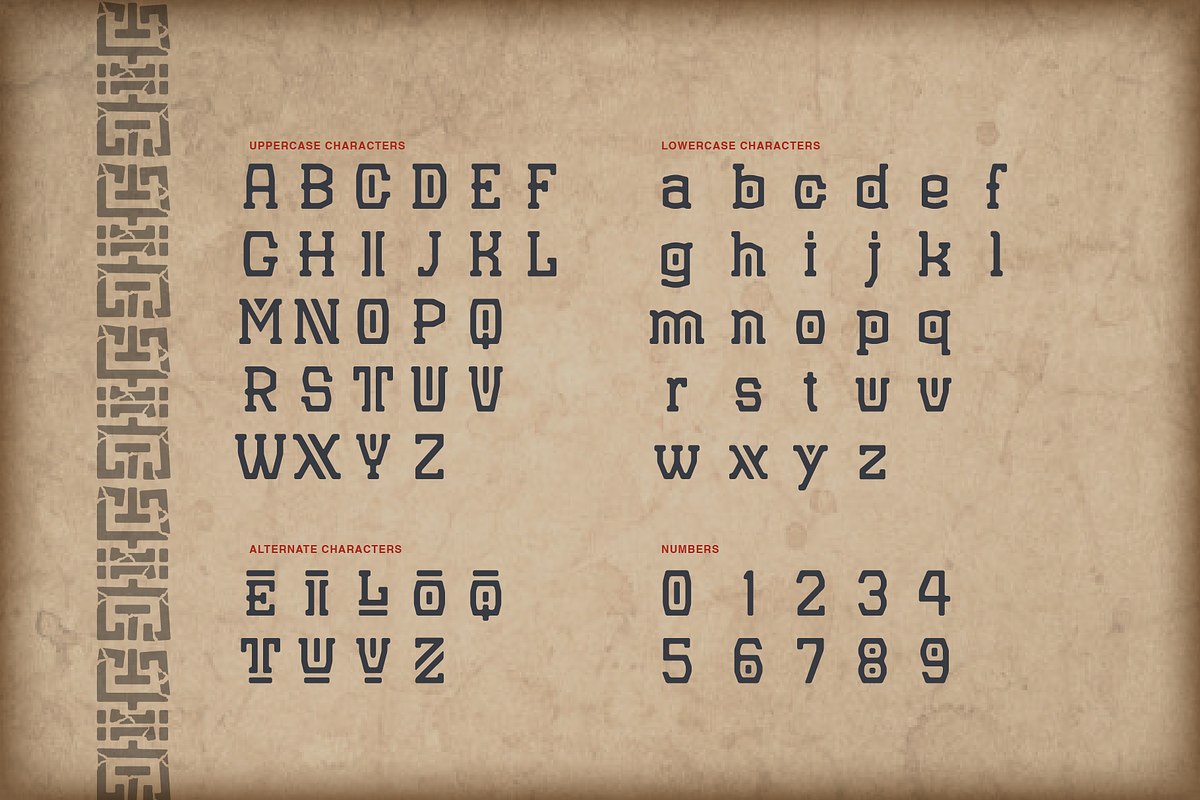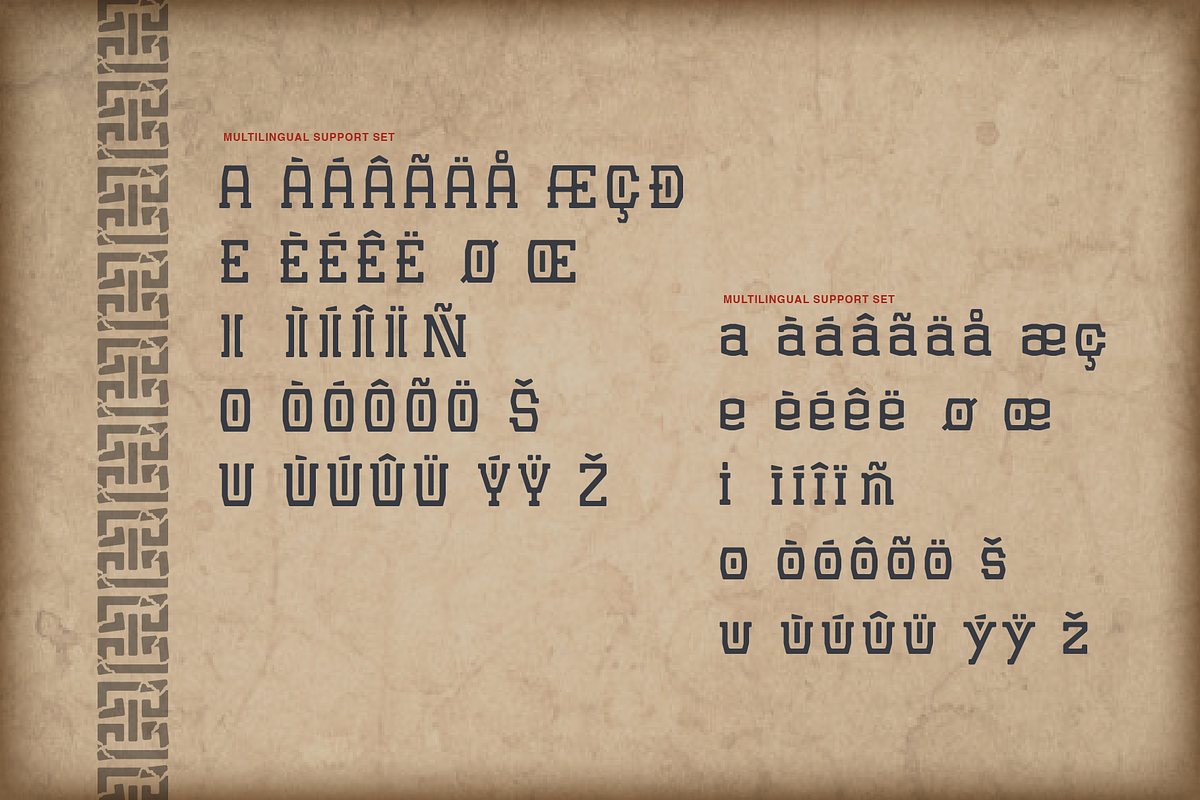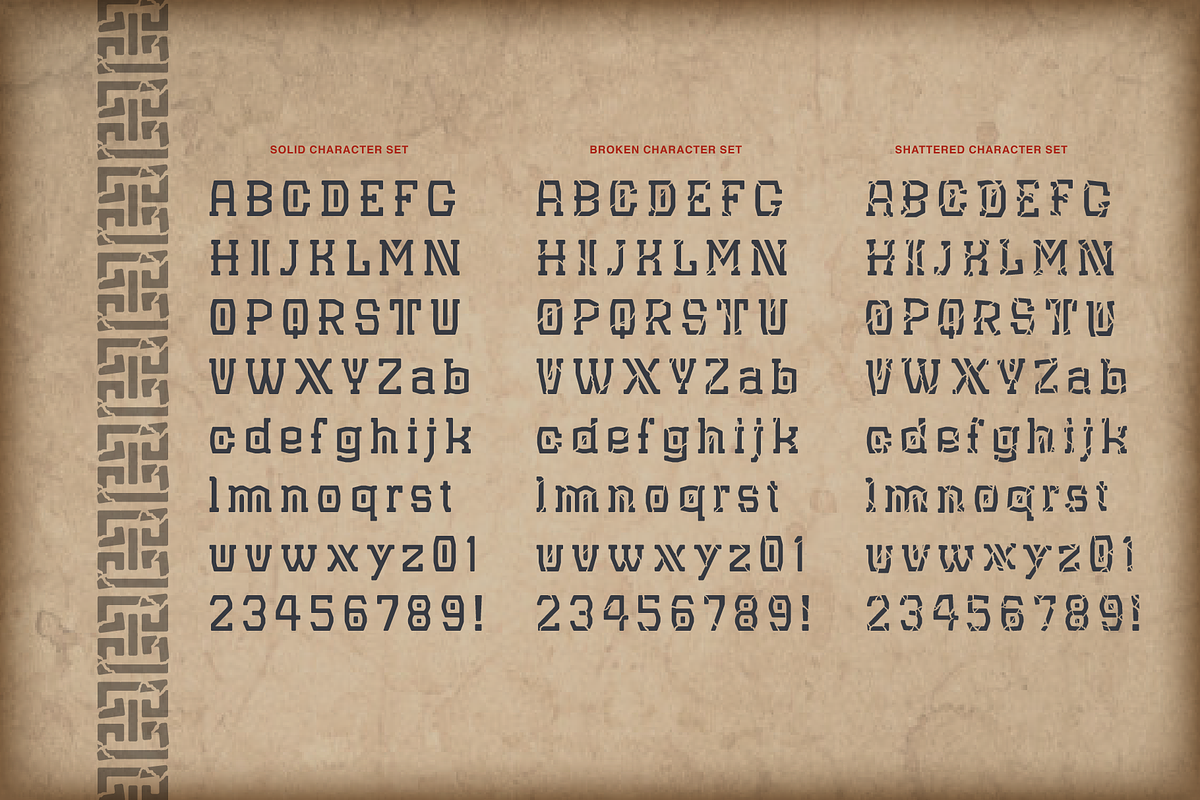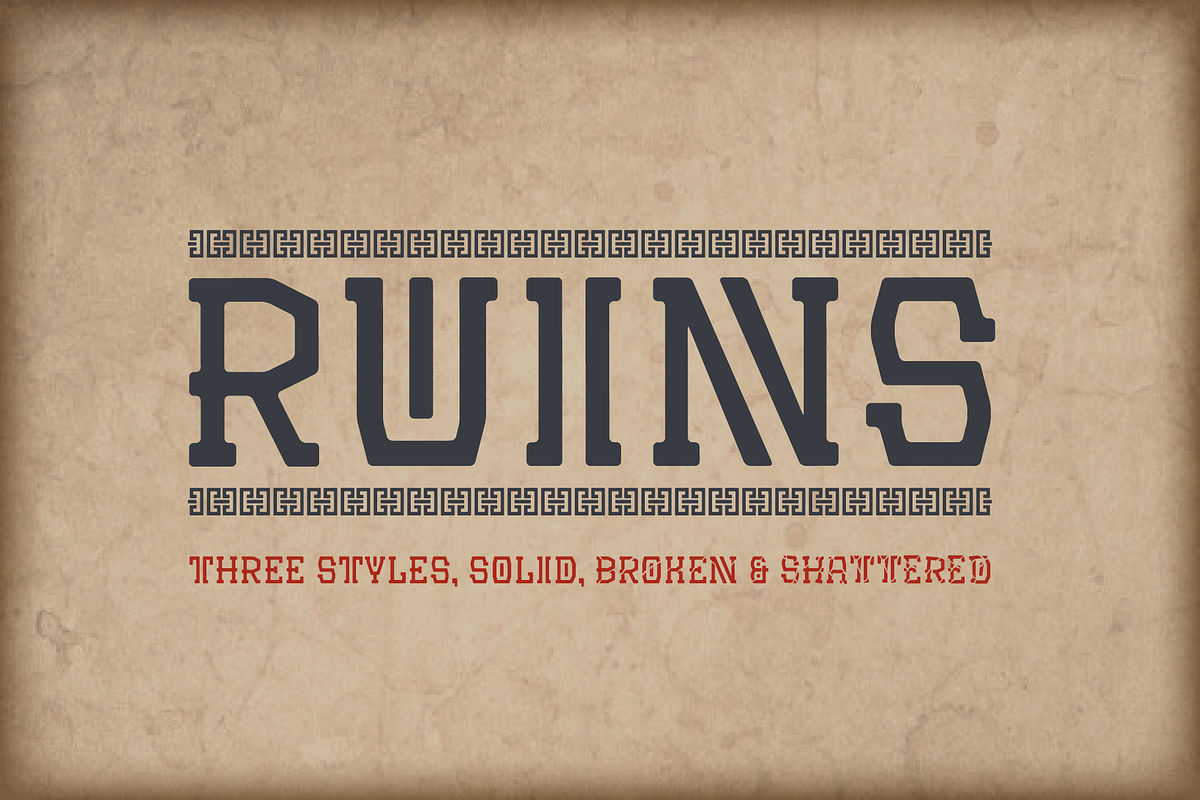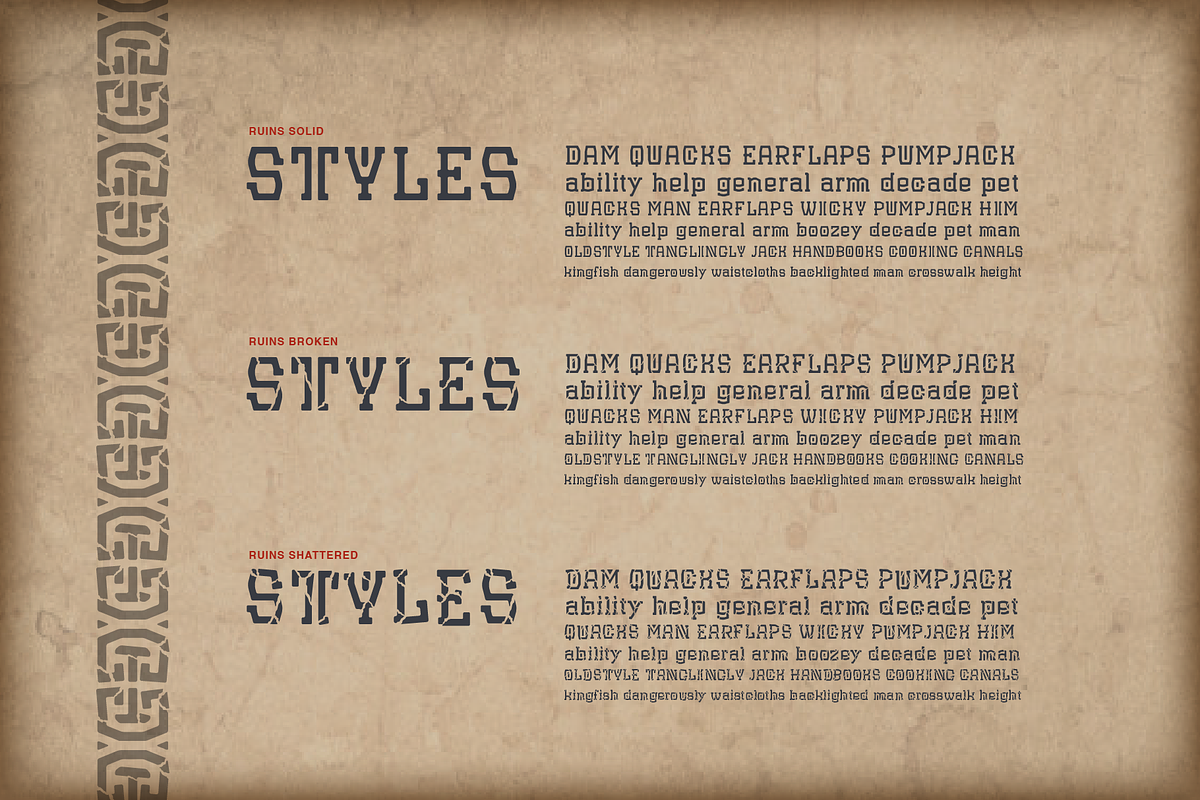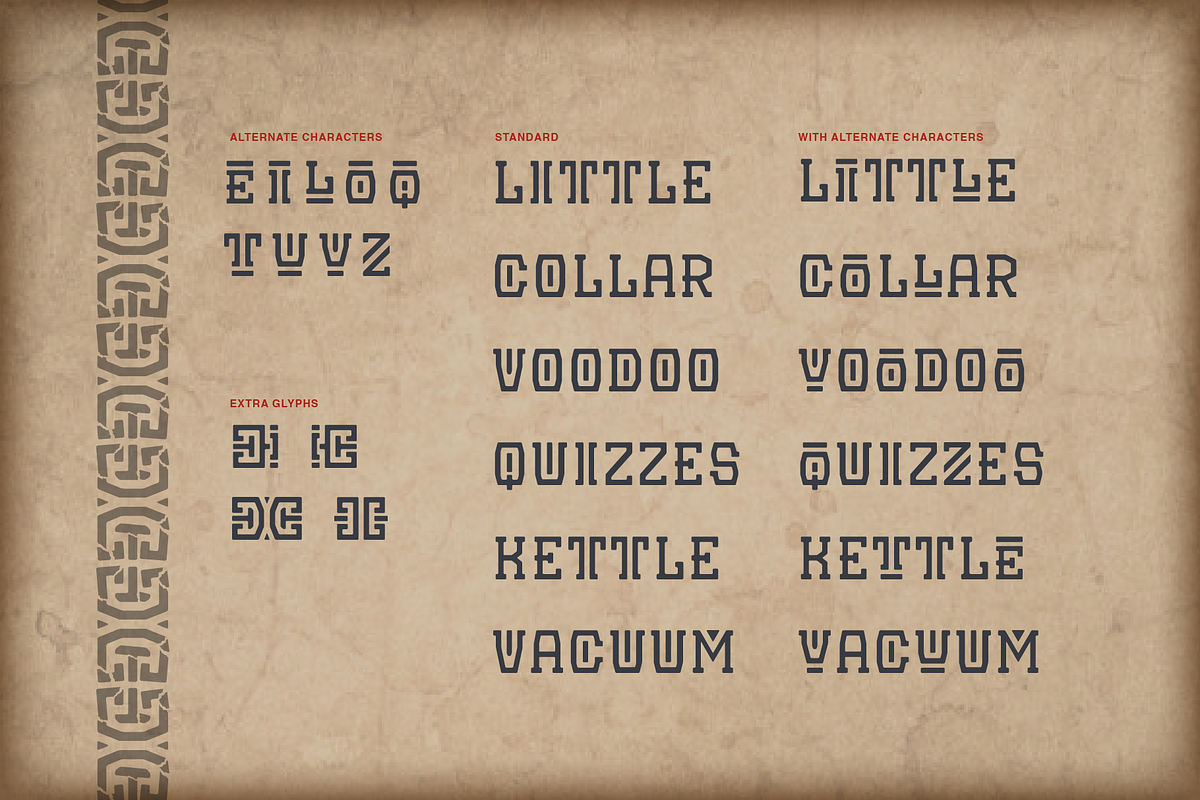
Ruins
This tribal geometric typeface inspired by the Aztec pyramids and ancient hieroglyphics. It's perfect for projects that want to feel historic or dated. It comes in three styles Solid, Broken and Shattered so you can control the weather textured feel of each project. Plus it has a full character set, alternative characters, extra glyphs to create borders or patterns with and a full set of accent characters.
- Three styles (Solid, Broken and Shattered)
- Full Uppercase and Lowercase A to Z character set
- Numbers and mathematical symbols
- Special characters and full multilingual support set
- 9 Alternate characters
- Patterns
- Kerning Pairs